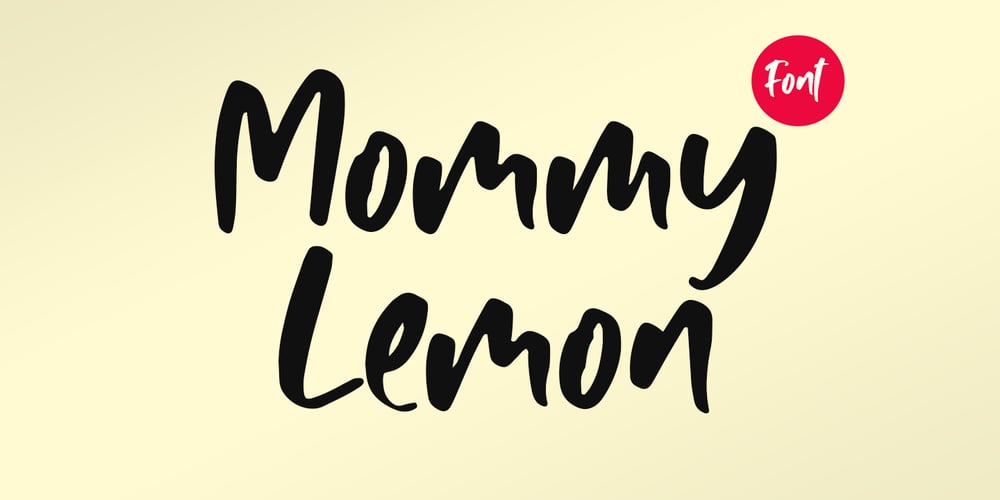
Mommy Lemon Font Family was designed by Anton Cahyono and published by Motokiwo. Mommy Lemon contains 1 styles and family package options. Mommy Lemon – a smooth handcrafted font with delightful characters. It’s great for headline, logo, poster, spa or hotel projects, food projects, and many more. Mommy Lemon features Uppercase and Lowercase, Numeral & Punctuation, Ligature, Special Characters (Multi-lingual), is PUA Encoded and easy to use.